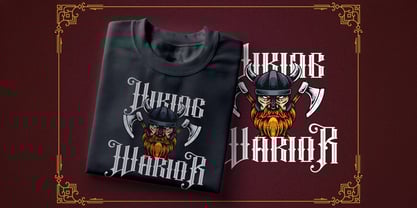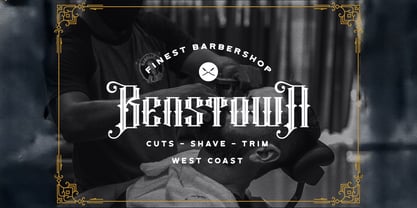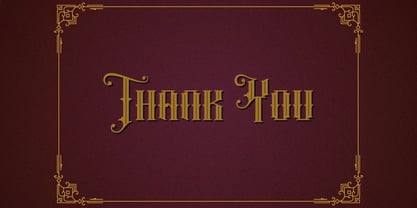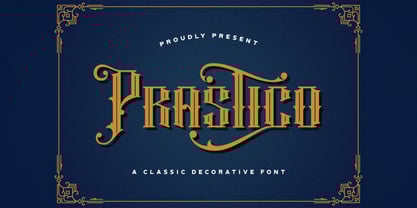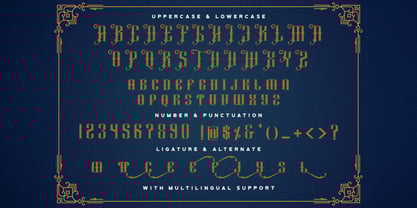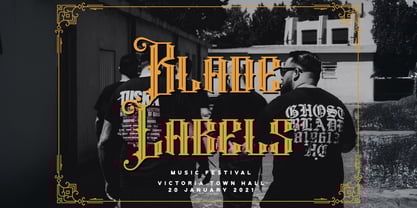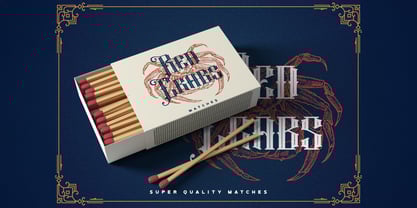
Die Schriftfamilie Prastico wurde von Virgiawan Listanto entworfen und von Stringlabs Creative Studio veröffentlicht. Prastico enthält 1 Stile.
Prastico is a bold Blackletter font that fuses gothic heritage with a modern, rebellious spirit. With its sharp lines, intricate curves, and strong presence, Prastico is built to make a dramatic impact across any design. Perfect for logos, posters, music merch, tattoos, and vintage-inspired branding, Prastico brings power, precision, and unmistakable character to your work.
Prastico